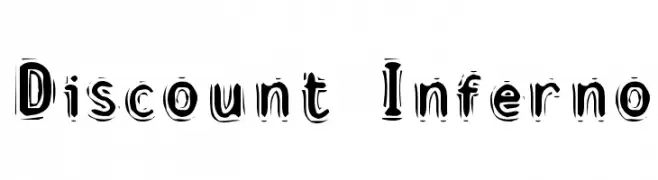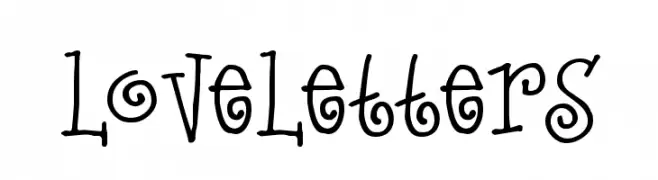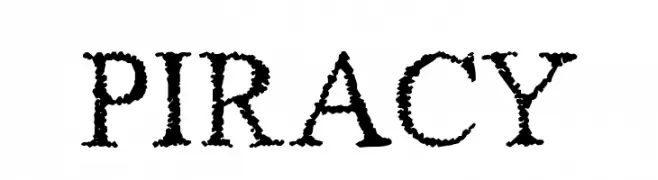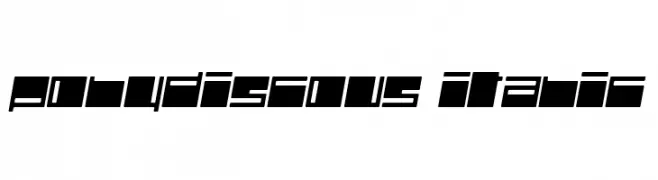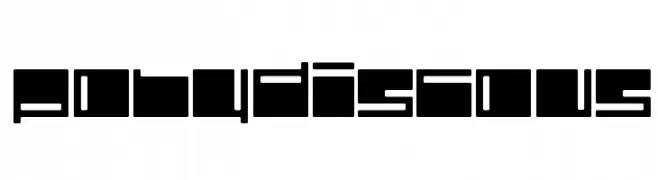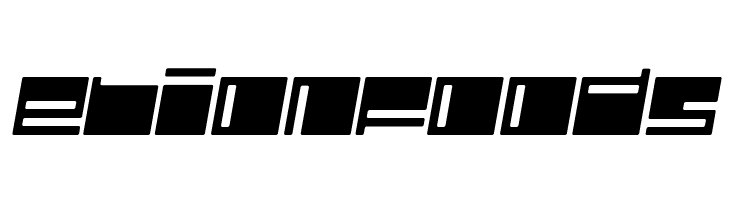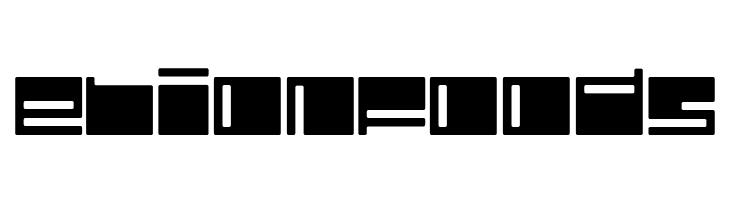
A bold, geometric font with a futuristic and retro aesthetic.
A bold, futuristic italic font with sharp angles and geometric shapes.
A bold, geometric font with a three-dimensional shadow effect.
A whimsical, hand-drawn font with a playful and irregular style.
A bold, distressed font with a fiery, energetic style.
A bold, playful font with wavy outlines and high contrast, perfect for dynamic designs.
A rugged, textured font with a hand-crafted, adventurous feel.
A bold, geometric font with rounded edges and a modern style.